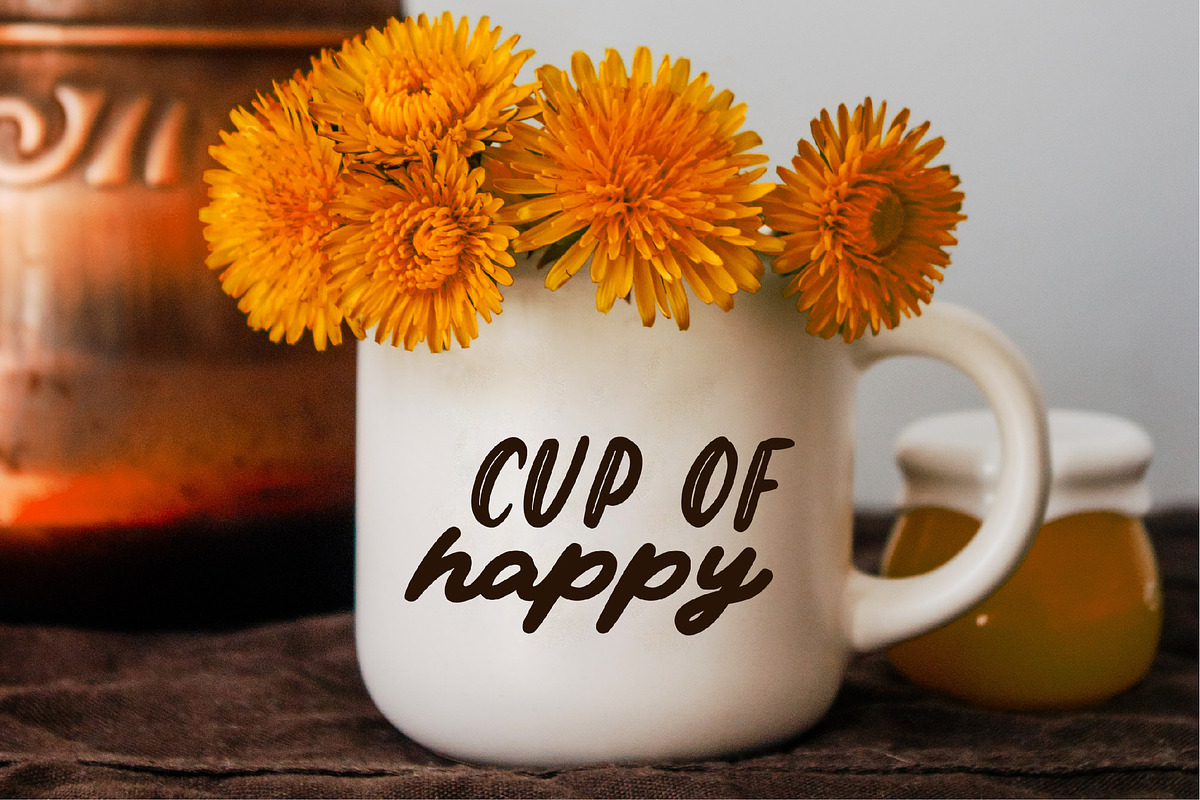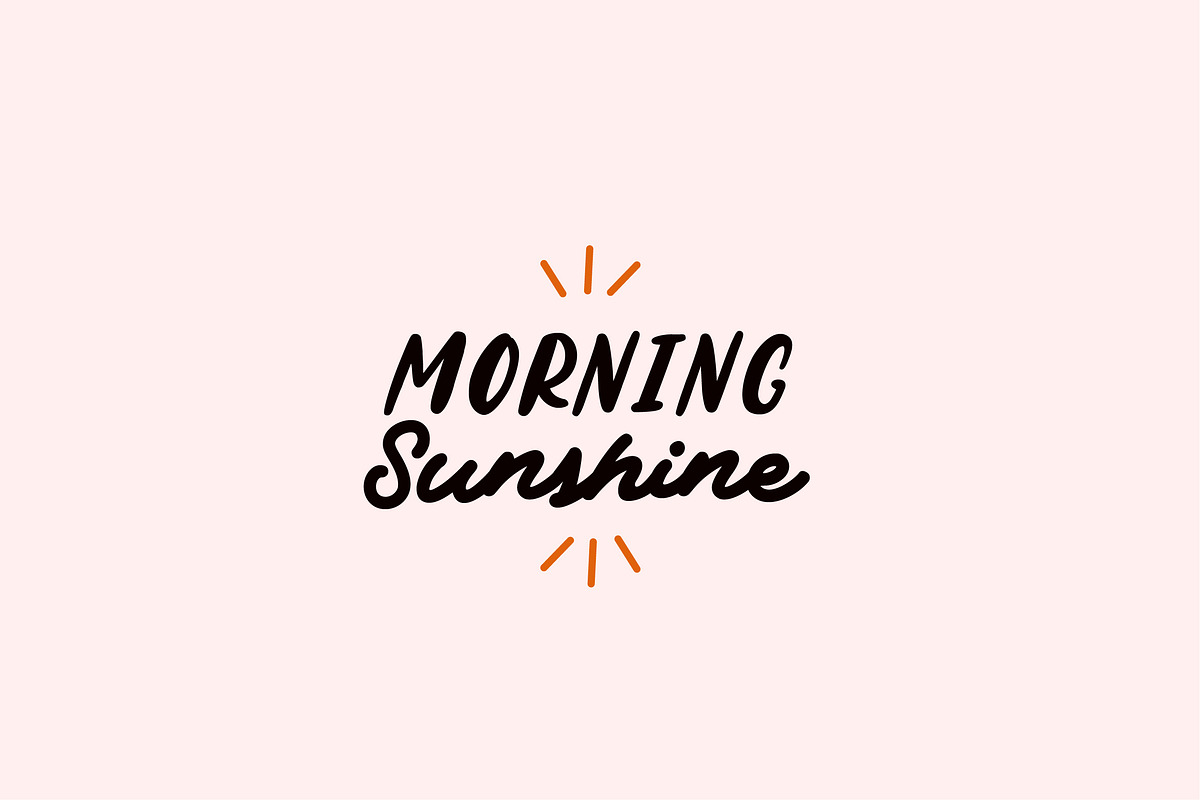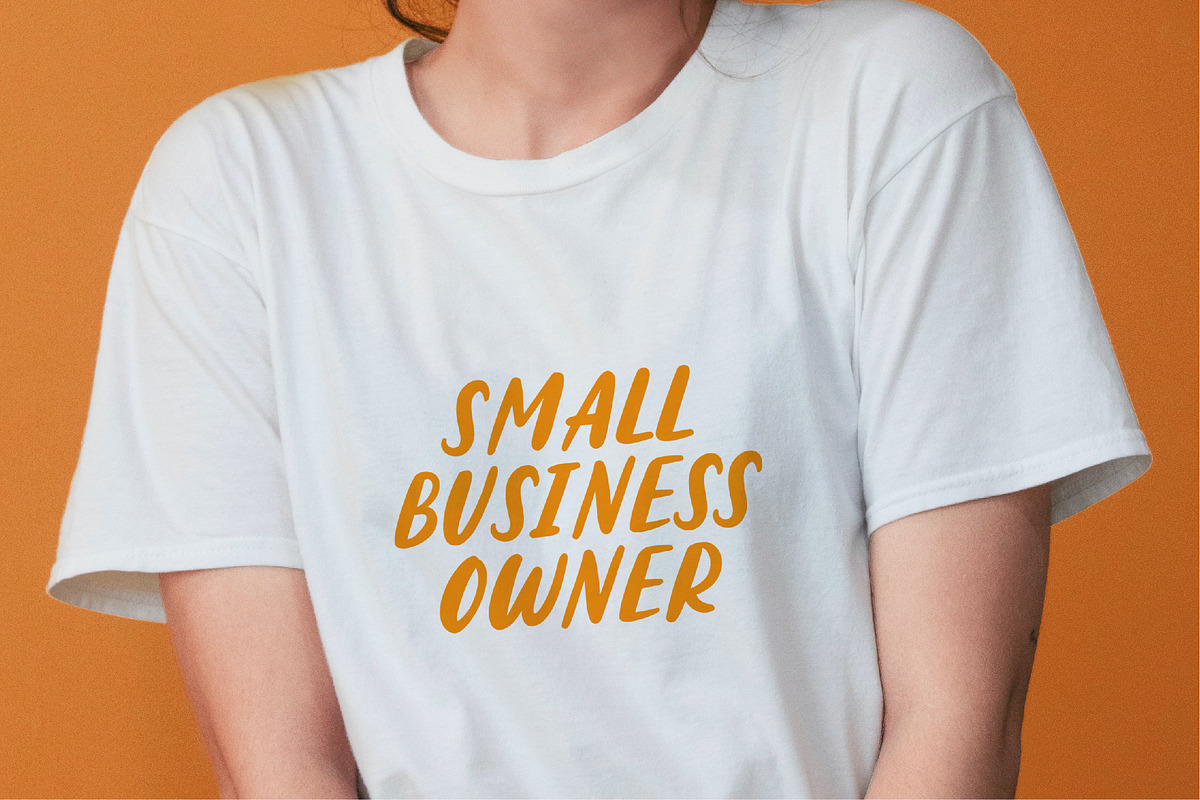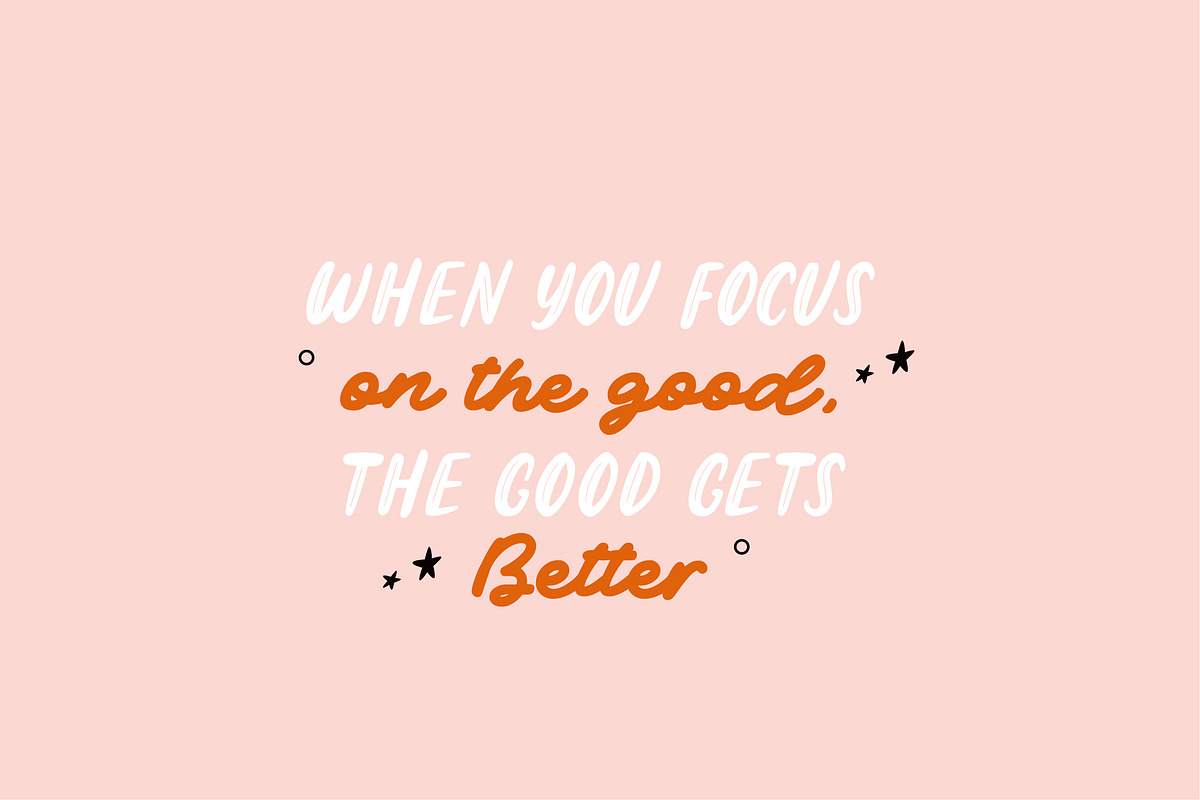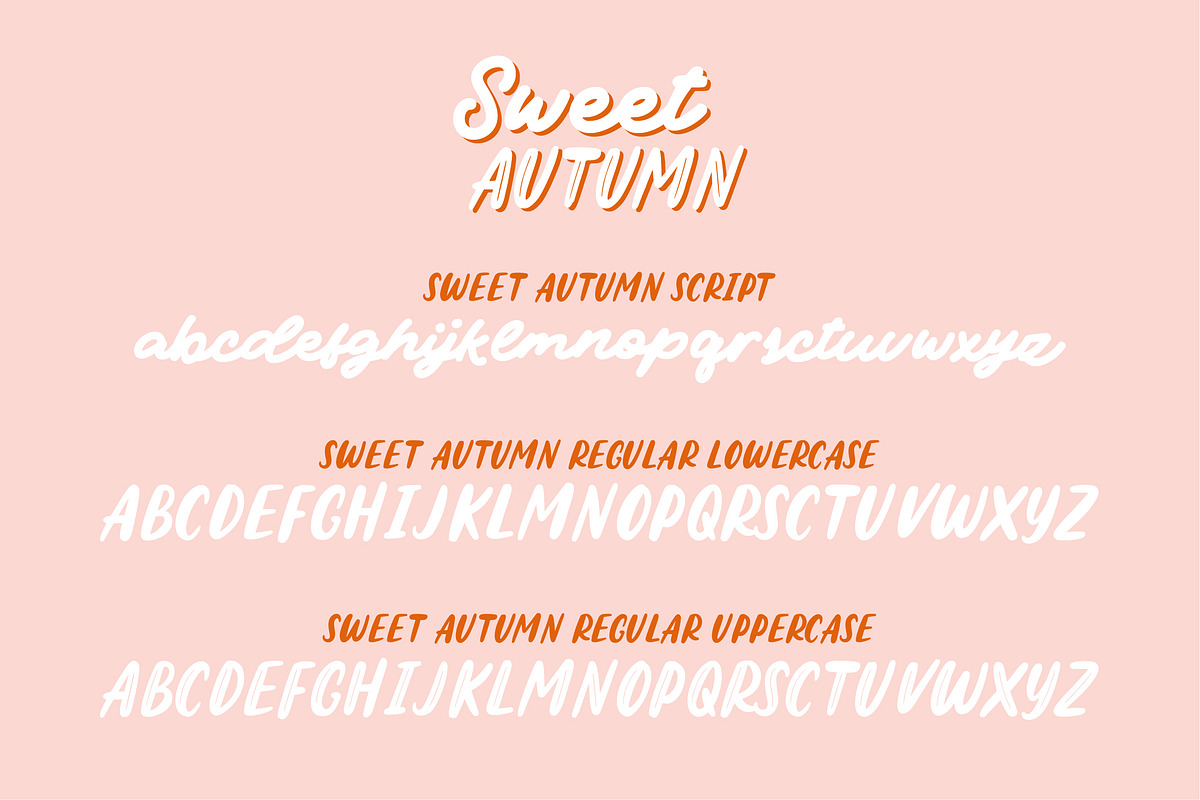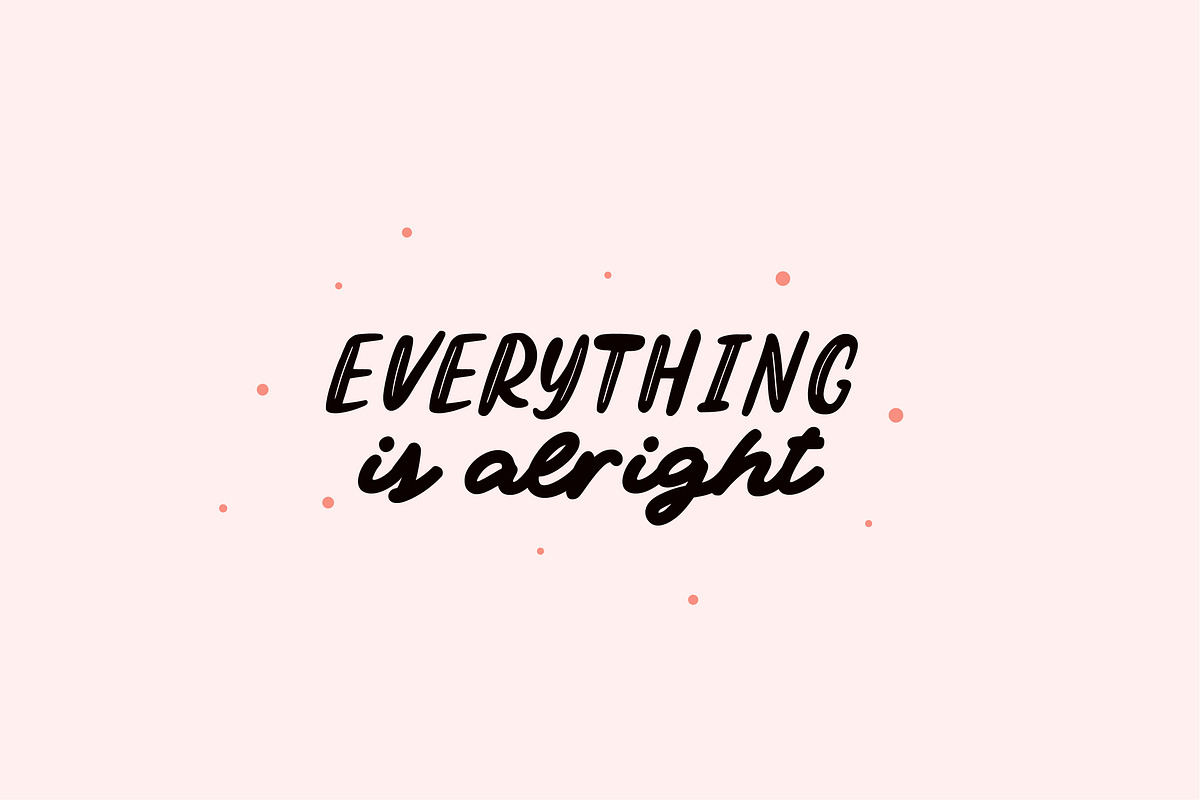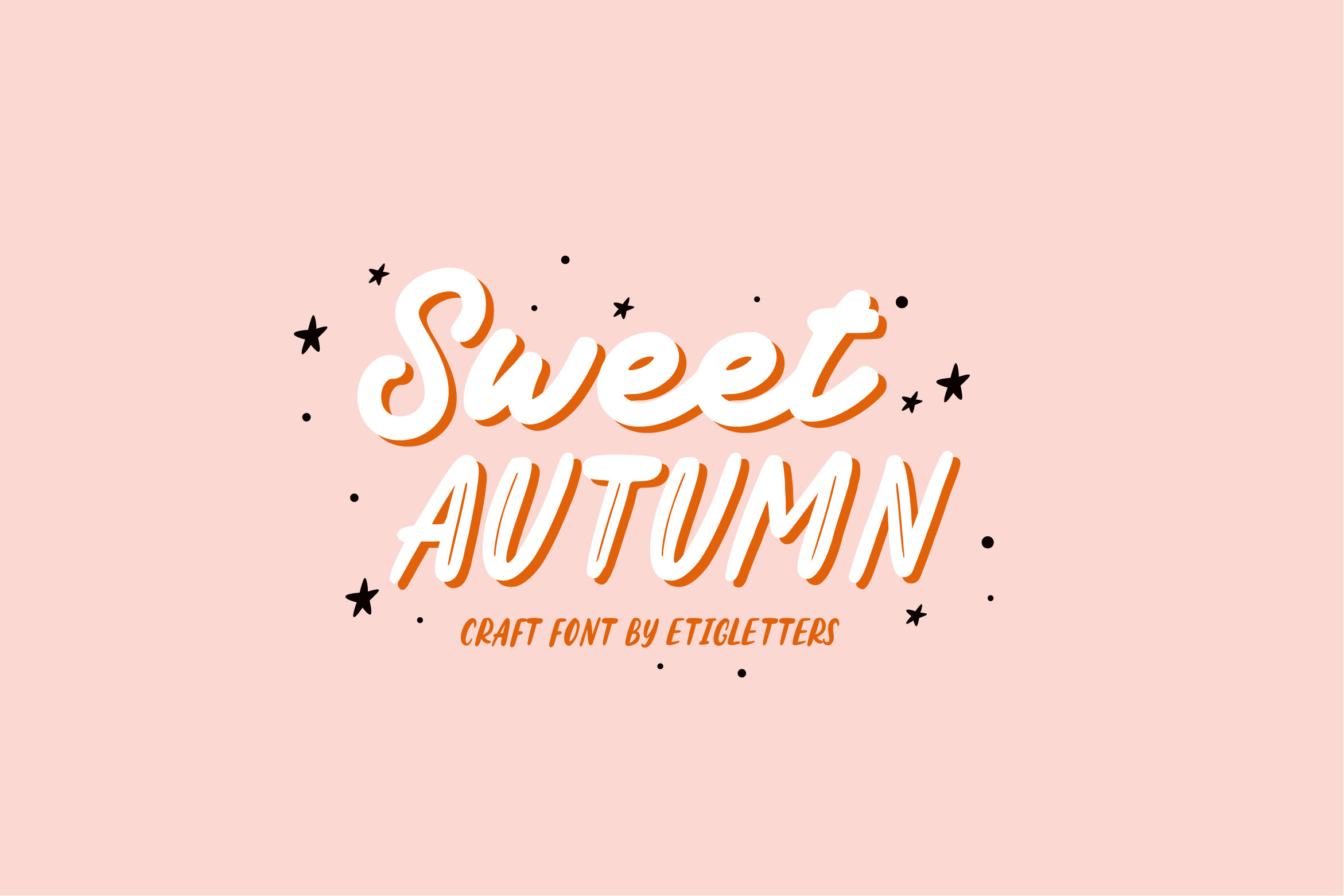
Sweet Autumn Font Duo
Introducing, Sweet Autumn - font duo script and playful sans. Sweet Autumn will be perfect for stickers, greeting cards, logos, posters or anything that requires a fun and happiness look! And also perfect for halloween stuff.
There’s 2 styles for the Regular one, uppercase and lowercase. Also already PUA Encoded!